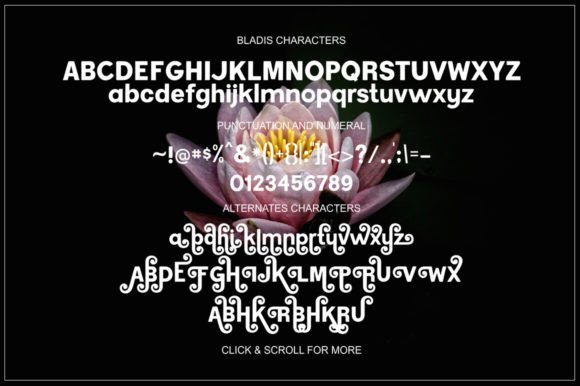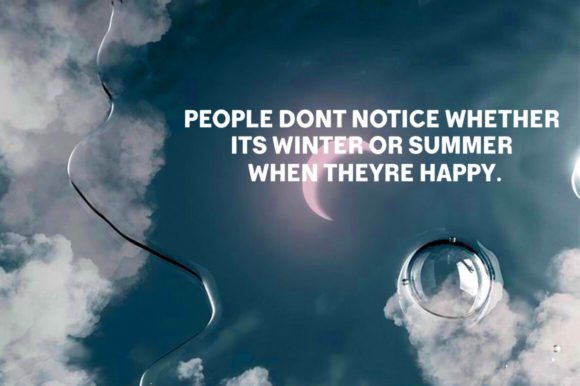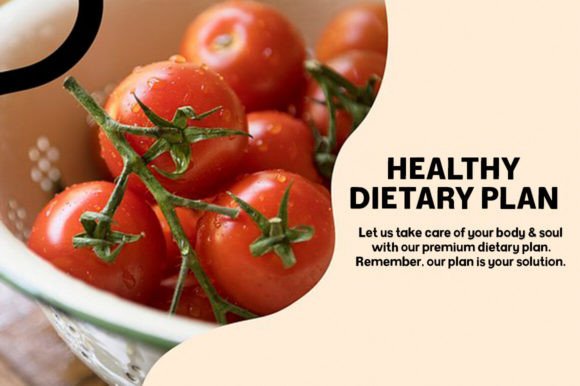
Discovering the Perfect Font for Your Next Design Project
Have you ever stared at a blank canvas, trying to find the perfect font to bring your design to life? I know I have. The perfect font can make all the difference between a mediocre design and a truly stunning one. For me, that perfect font is often elusive, but when I stumbled upon the Bladis Font, I knew I had found something special.
The Bladis Font is a modern elegant typeface designed with a collection of stylistic alternates and ligatures. Its clean, medium lines and smooth curves make it perfect for beauty or fashion themes, where a touch of sophistication is always welcome. As a designer, you know how valuable it is to have a font that can elevate your designs and make them truly stand out.
With the Bladis Font, you’ll have the versatility to create a wide range of designs, from elegant invitations to stylish fashion magazines. Its unique combination of clean lines and smooth curves makes it a valuable addition to any designer’s toolkit.
Key Features of Bladis Font
- Size: The font family includes 12 weights, ranging from Thin (100) to Black (900), offering flexibility for various design needs.
- Resolution: Designed for optimal display at resolutions of 72 dpi and 96 dpi, making it suitable for digital applications.
- Unique Characteristics: Bladis Font features a modern, geometric sans-serif design with clean lines, making it ideal for corporate branding, digital interfaces, and editorial content.
- Language Support: Supports a wide range of languages, including Latin, Cyrillic, and Greek scripts, allowing for global application.
- Font Metrics: Designed with precise font metrics, ensuring consistent spacing and alignment across different weights and sizes.
Bladis Font Review
I recently had the chance to work with the Bladis font, and I must say it’s a unique addition to any design project. ✨ One of its strongest features is its modern and sleek aesthetic, making it perfect for contemporary designs. It’s also highly versatile, suitable for both digital and print media.
Another aspect that works well for Bladis is its extensive character set, which includes a wide range of languages and special characters. This makes it a great choice for projects that require multilingual support. ✨ The font also features a clean and minimalist design, which can help to convey a sense of professionalism and sophistication.
- ⚠️ Limited expressiveness: While Bladis is suitable for a wide range of projects, it may not be the best choice for designs that require a lot of emotional expression or personality.
- ⚠️ Not ideal for small text: Due to its modern design, Bladis may not be the best choice for small text sizes, as it can become difficult to read.
Overall, I think Bladis is a solid choice for designers looking for a modern and versatile font. While it may have some limitations, its strengths make it a great addition to any design project. If you’re looking for a clean and professional font, Bladis is definitely worth considering.
Tips for Getting the Most Out of Bladis Font
Bladis Font is a versatile font that can be used in a variety of design contexts. Here are some tips for getting the most out of it:
- Pair Bladis Font with other fonts to create a unique and eye-catching design.
- Use Bladis Font in combination with bold and italic styles to add emphasis and hierarchy to your design.
Common Use Cases for Bladis Font
Bladis Font is a popular choice for designers who want
Alternatives to Bladis Font for Designers
Montserrat is a popular sans-serif font designed by Julieta Ulanovsky. It is a clean and modern font suitable for digital and print media. Montserrat is ideal for use in headings and body text where a clear and legible font is required.
Montserrat is similar to Bladis Font in its sans-serif design, but it has a more geometric and industrial feel. Montserrat is a more versatile font and can be used in a wider range of applications, including logos, headings, and body text.